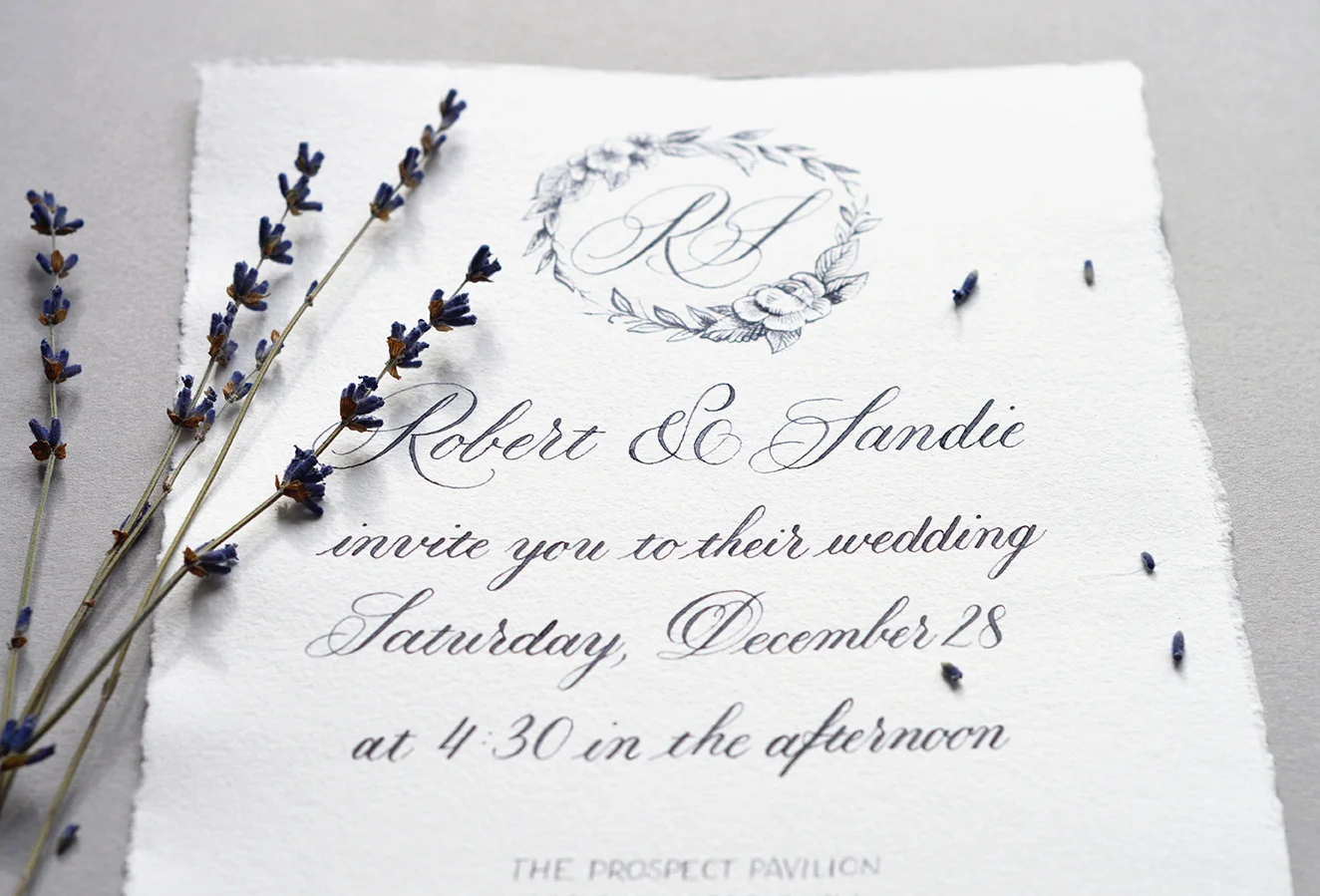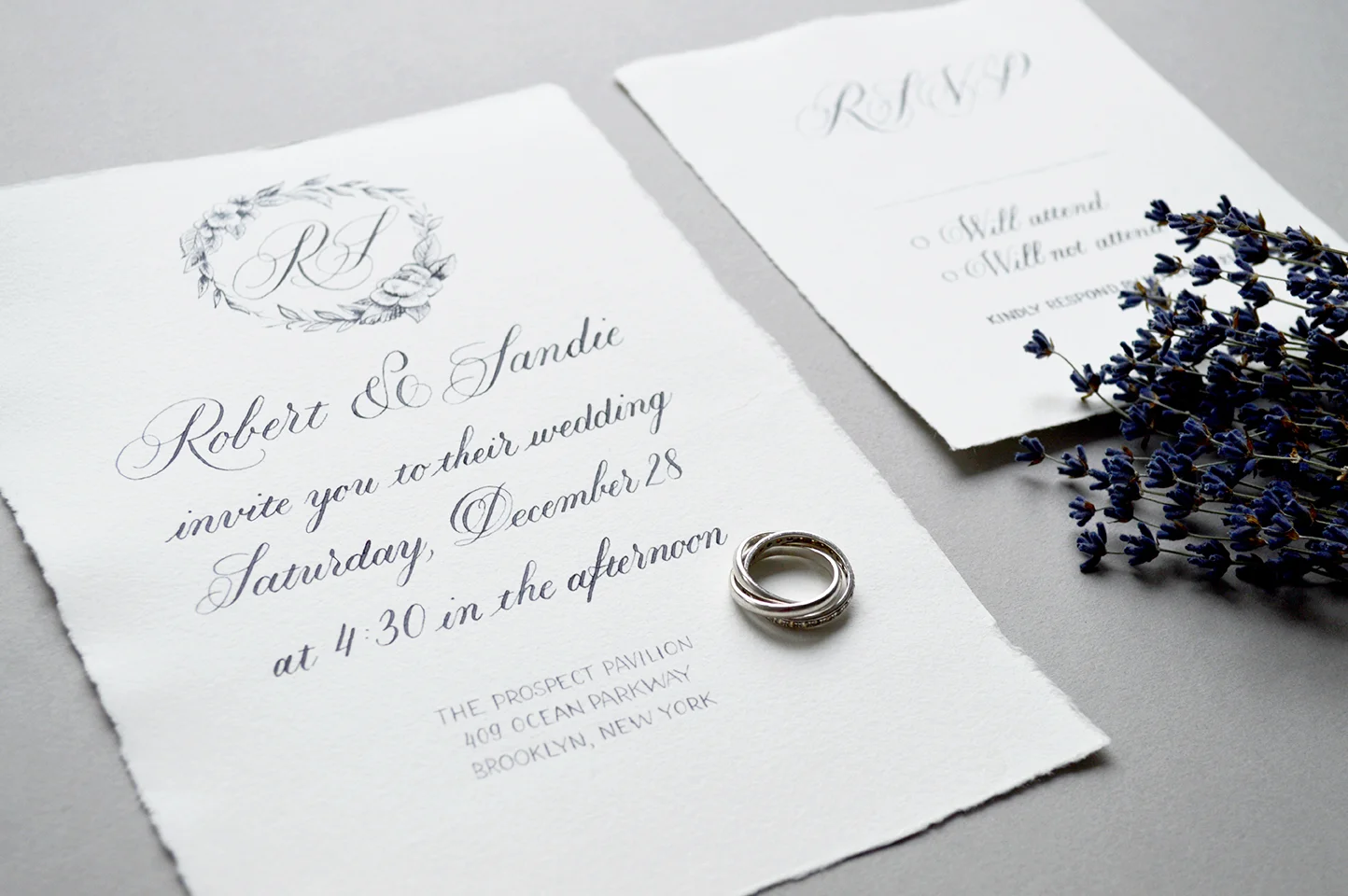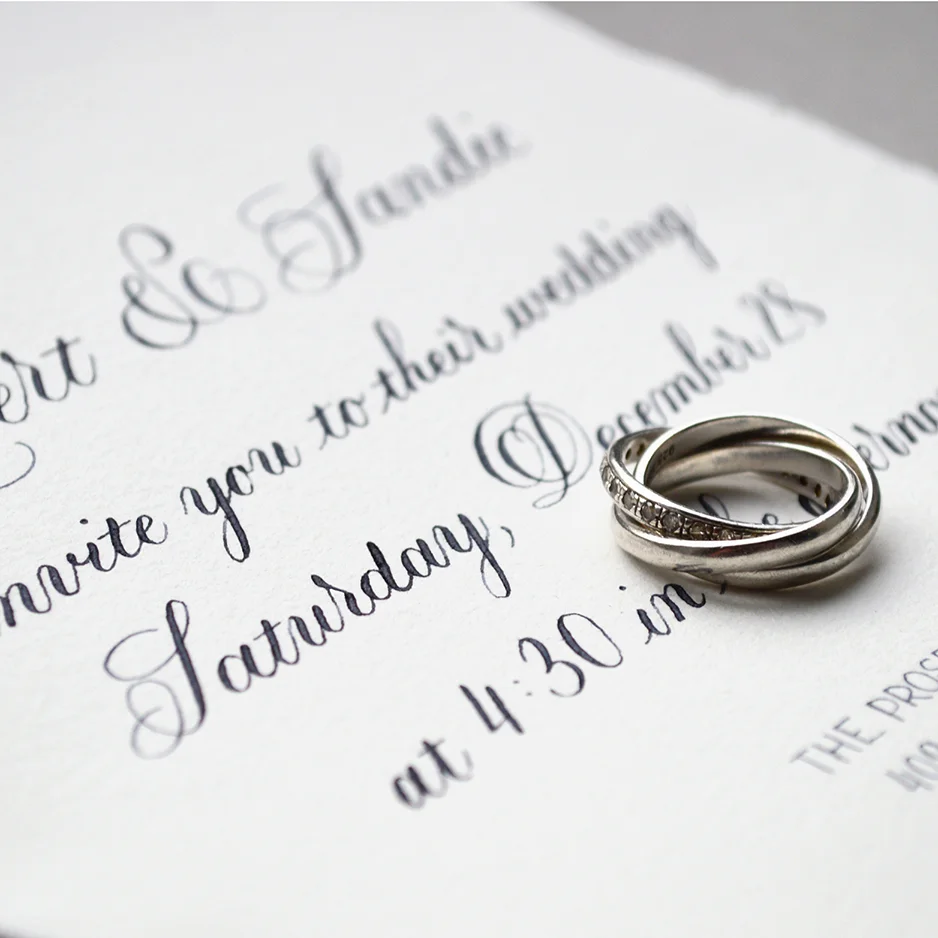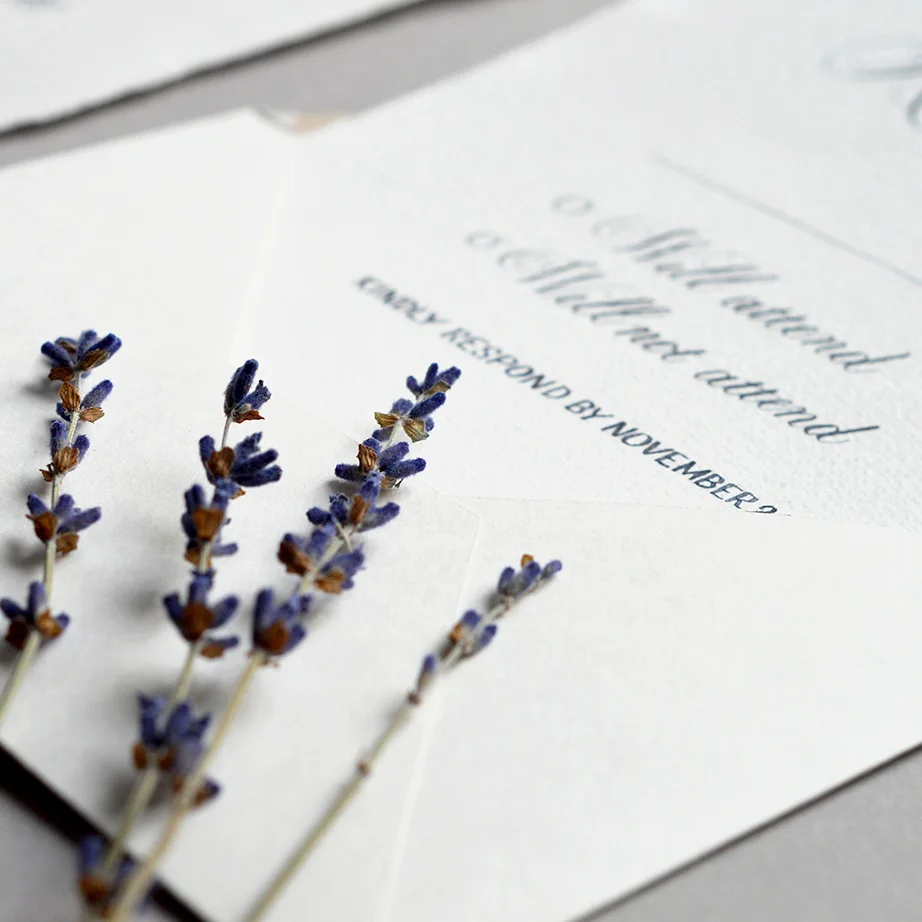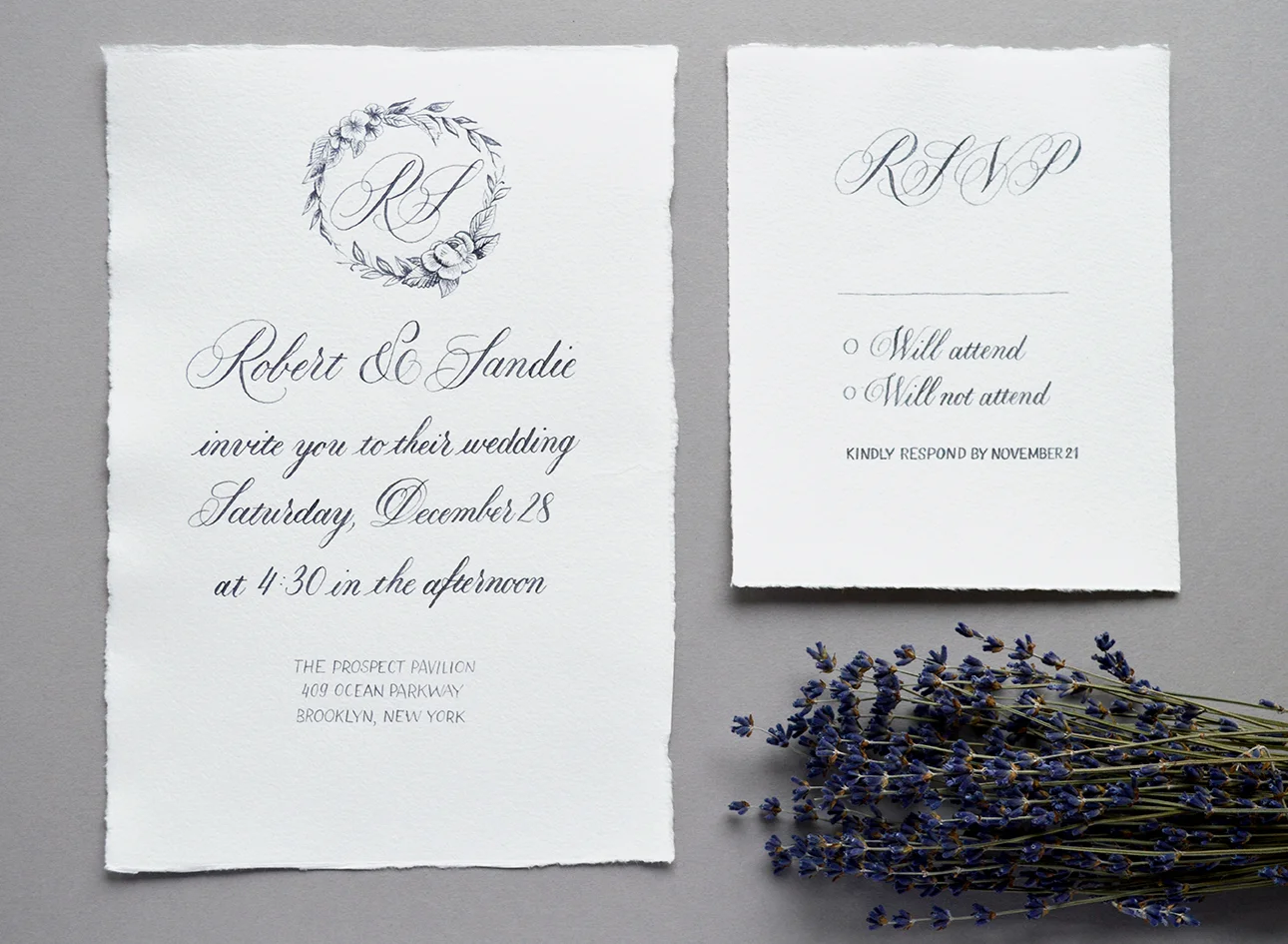
One Paper. Two Wedding Collections
It all happened about a month ago: I found a strange dark emerald paper in a small stationary shop. I just was not able to go back home without a piece of it.
Wedding Collection | Calligraphy & photos by Type and Graphics Lab typeandgraphicslab.com
It all happened about a month ago: I found a strange dark emerald paper in a small stationary shop. I just was not able to go back home without a piece of it. Fascinated by the color and the texture, I suppressed my doubts about how I could actually write on such a textured surface. Somehow I'd figure it out later… Well, what I found is that this paper was not suitable for writing: it doesn’t hold the ink. I’ve spent many hours in attempts to find the perfect mixture, only to realize that nothing works and I have only half of that precious material left. Then I made my last attempt and wiped it with a wet dishcloth. And it did the trick! After this little cleaning procedure, I was finally able to write on this paper (it was still quite challenging due to the textured surface). Anyway, I’ve made a whole wedding invitation suite inspired by the Spencerian Script. Then I decided to create another one with a more expressive freestyle writing to match the whimsical character of the paper. Usually, I prefer not to go so wild with my calligraphy, but this time I just allowed myself to forget about the rules and find the flow. The end result may be quite hard to read. Still, it’s always worth trying!
Wedding Collection inspired by Paris in the snow
I’ve been practicing calligraphy for a while, but only recently I decided to take the next step and make it a part of my portfolio. It’s unfair to hold back something that brings me so much joy, and I hope that through my work I can share that joy with you.
Wedding Collection: Paris in the snow by Type and Graphics Lab | typeandgraphicslab.com
My first wedding collection was inspired by Paris in the snow: minimalistic, classy and with lots of cold grey colors. Why Paris and snow? Since this time I was kinda my own client, I decided to draw inspiration from my own little story. I’ve lived in France for 3 years during my studies and I was obsessed with french culture, traditions, and Paris (of course!) Luckily, I lived quite close to this amazing city and was traveling there often.
One winter day I was visiting Paris, and suddenly it started to snow. My shoes were not ready for that, and my feet became wet immediately, but who cares? Paris was amazing that day. The entire city was transformed into incredibly beautiful snowy fairy tale. I was walking around and enjoying the moment. After that small adventure I strongly believe that Paris is the best when it snows (I bet right now that french girl from Woody Allen’s “Midnight in Paris” is skeptically shaking her head and saying “Actually, Paris is most beautiful in the rain…”)
Since the snowy weather is not common in Paris, the whole experience became even more special for me. If you still feel too warm, here is my shot from that special day, taken with cold shaking hands:
Les Deux Magots, Paris | Photo by Type and Graphics Lab | typeandgraphicslab.com
Now back to calligraphy. To keep my work consistent and within a certain visual frame, I decided to create a mood board that reflects the desired colors and feelings.
Mood board for the Wedding Collection "Paris in the snow" by Type and Graphics Lab.Image references: 1. Pinterest, original source unknown. 2. David Downton 3. "Rouen, place Cauchoise sous la neige," Charles Frechon. 4. Yao Cheng.&nbs…
My mood board was really helpful, and I was constantly referencing it to keep the right feelings and mood in mind. I didn’t include any calligraphy work in my moodboard for one particular reason: it’s extremely easy to get too much inspiration from other calligraphers and unintentionally copy some of their work. Having no particular examples in front of my eyes was the best thing to boost my own creativity.
Sketching ideas was probably the most time consuming phase. But when I determined the whole layout, the implementation was pretty straightforward. Another time consuming task was taking photos. Hopefully, next time I’m going to collaborate with a photographer for a photo shooting (Universe, you’ve heard me!)